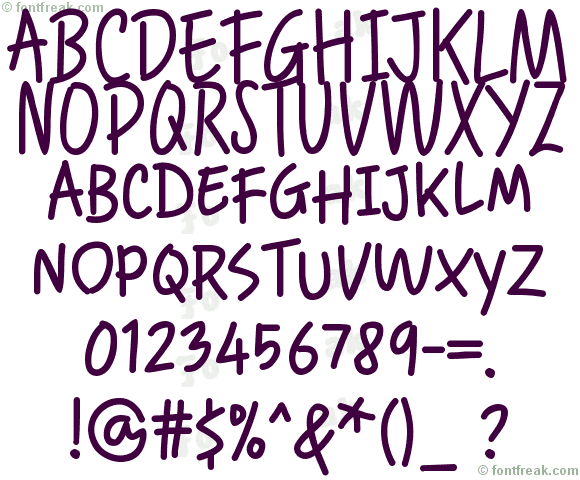
Dialoegue
About Dialoegue
Dialoegue is a unique display font designed by Situjuh Nazara, characterized by its playful, hand-drawn style. This font fits seamlessly into the decorative category, offering a charming and informal aesthetic that can elevate various design projects. The strokes of the Dialoegue font exhibit a moderate weight, providing a balanced contrast that enhances readability while maintaining a casual flair. The spacing between characters is generous, ensuring clarity and a relaxed feel, which invites viewers to engage with the text.
Ideal for a range of creative applications, Dialoegue shines in contexts that call for a friendly and approachable vibe. It is perfect for wedding invitations, where its whimsical nature can set a joyful tone. Additionally, this font works beautifully for restaurant menus, bringing a touch of warmth to the dining experience. Graphic designers may find it useful for creating engaging posters, especially for events or festivals, while content creators can utilize it for eye-catching social media graphics. Small business owners can leverage Dialoegue in branding materials, helping their products stand out in a crowded market.
What sets Dialoegue apart is its ability to blend a casual, hand-crafted appearance with functional readability. This makes it not just a visual delight, but also an effective tool for communication. Its versatility across various applications ensures that it can bring a unique touch to any project, making it a valuable addition to any designer's toolkit.